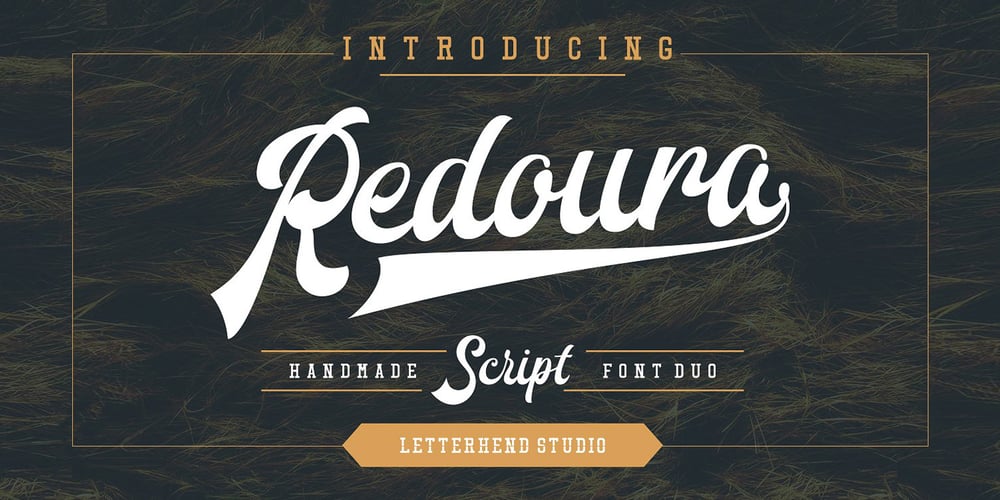
Redoura Font Family was designed by Hendry Juanda and published by Letterhend. Redoura contains 2 styles and family package options. Redoura Font is a script typeface inspired by 70’s font style and Script Sports font style which is absolutely awesome for logotype / wordmark, especially for sports theme logos. Redoura Script font includes upper & lowercase characters, punctuation, numerals, and multilingual support. It also has many open type alternates and ligatures.